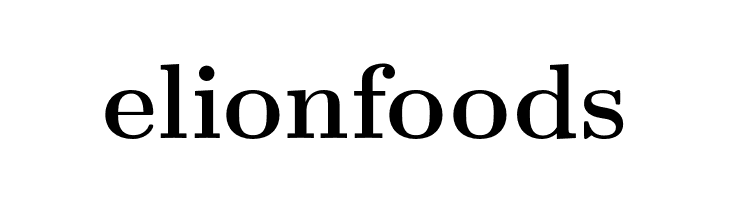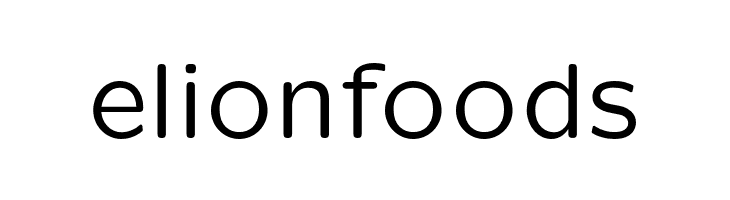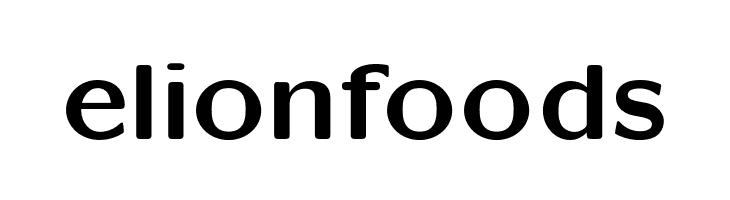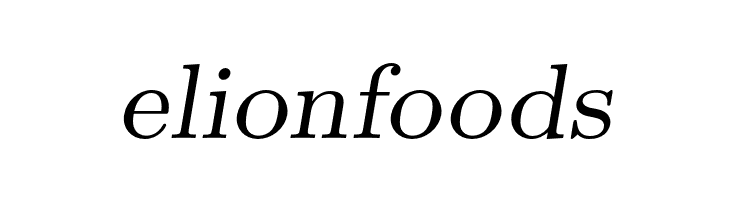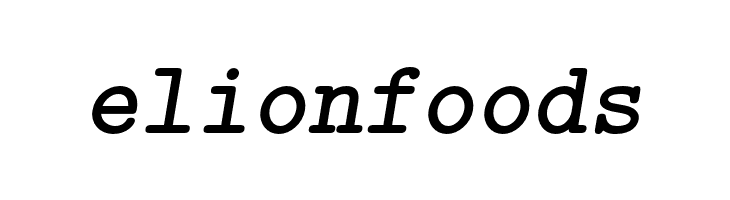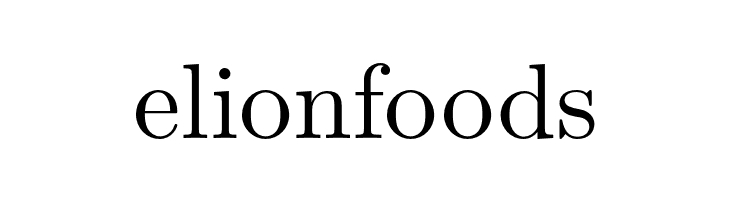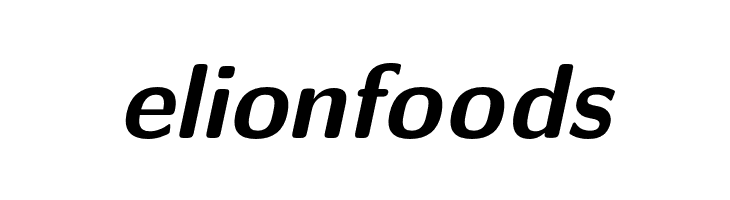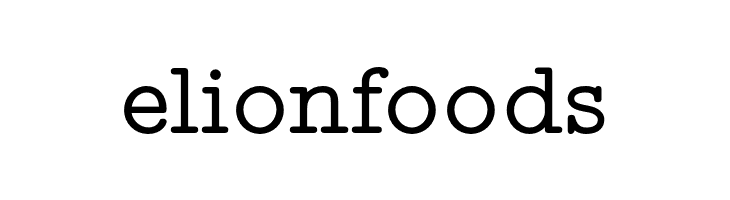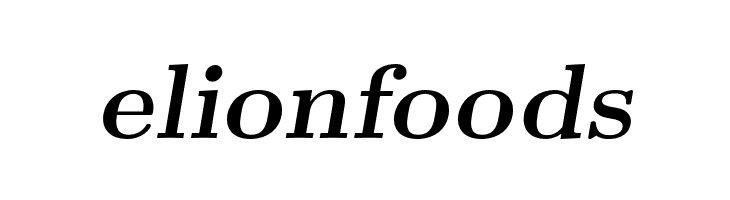
A bold, classic serif font with strong, authoritative strokes and sharp serifs.
A clean and modern sans-serif font with balanced proportions and excellent readability.
A bold, modern sans-serif font with clean lines and uniform strokes.
A classic serif font with a slant, offering elegance and readability.
A bold, oblique monospaced font with uniform character width and modern appeal.
A bold, classic serif font with strong strokes and elegant curves.
A classic serif font with elegant, well-defined strokes and balanced structure.
A bold and oblique modern font with smooth, consistent strokes.
A clean, monospaced font ideal for coding and technical documentation.
A bold, slanted serif font with elegant and dynamic characteristics.